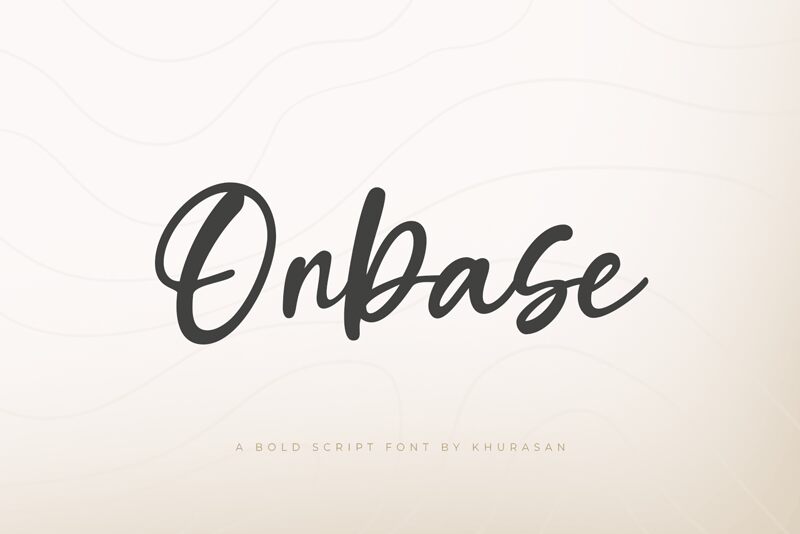
Onbase
Onbase, a script font designed by Khurasan, brings a clean, stylish, modern, and elegant touch to your projects.
Its versatility makes it suitable for various design purposes - from eye-catching posters and captivating logos to sophisticated magazines and alluring book covers. With Onbase, you can effortlessly create stunning banners that demand attention. Let this amazing font elevate your creative ideas, making them stand out in any project you undertake.
Embrace the beauty of Onbase and unlock endless possibilities for your designs.